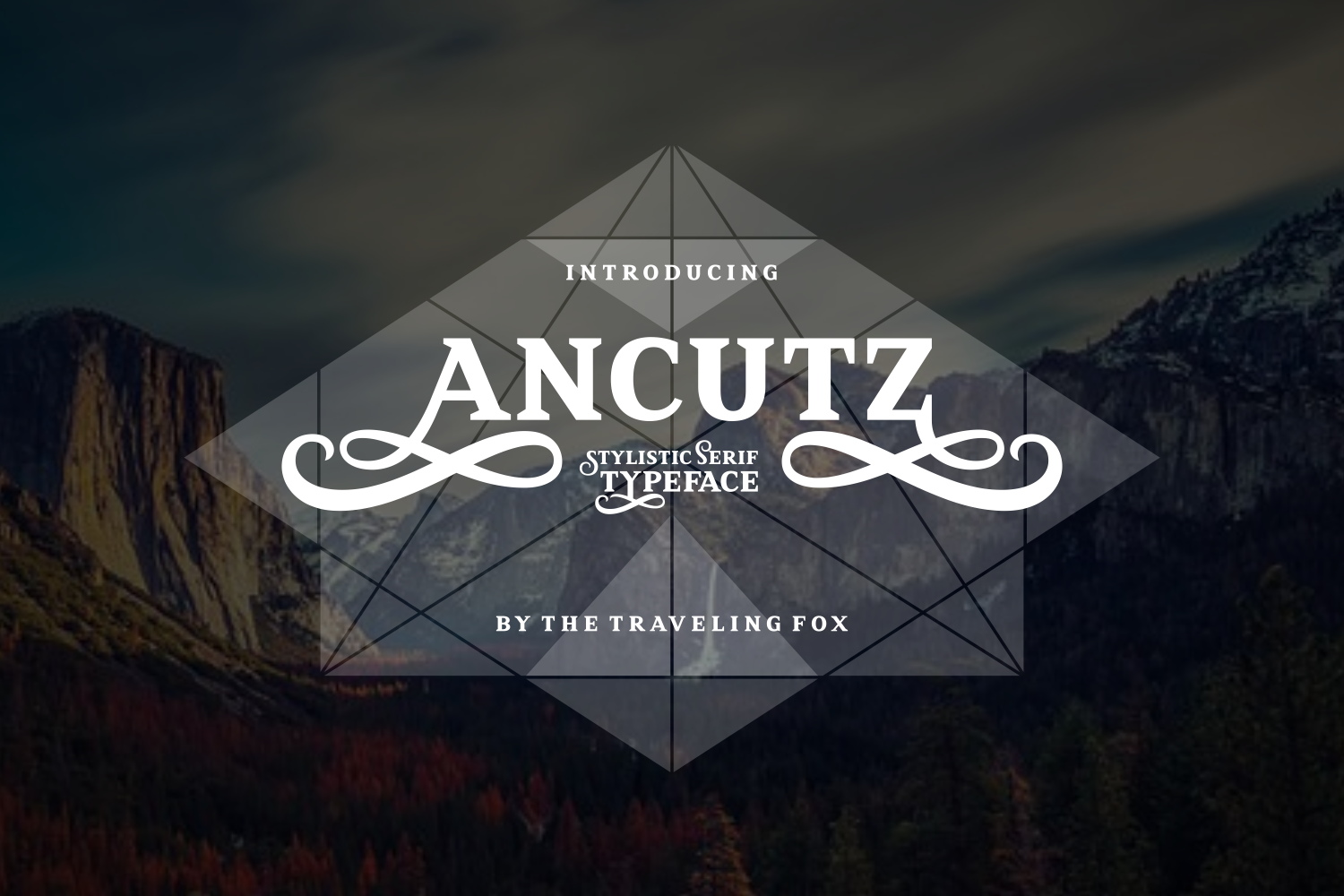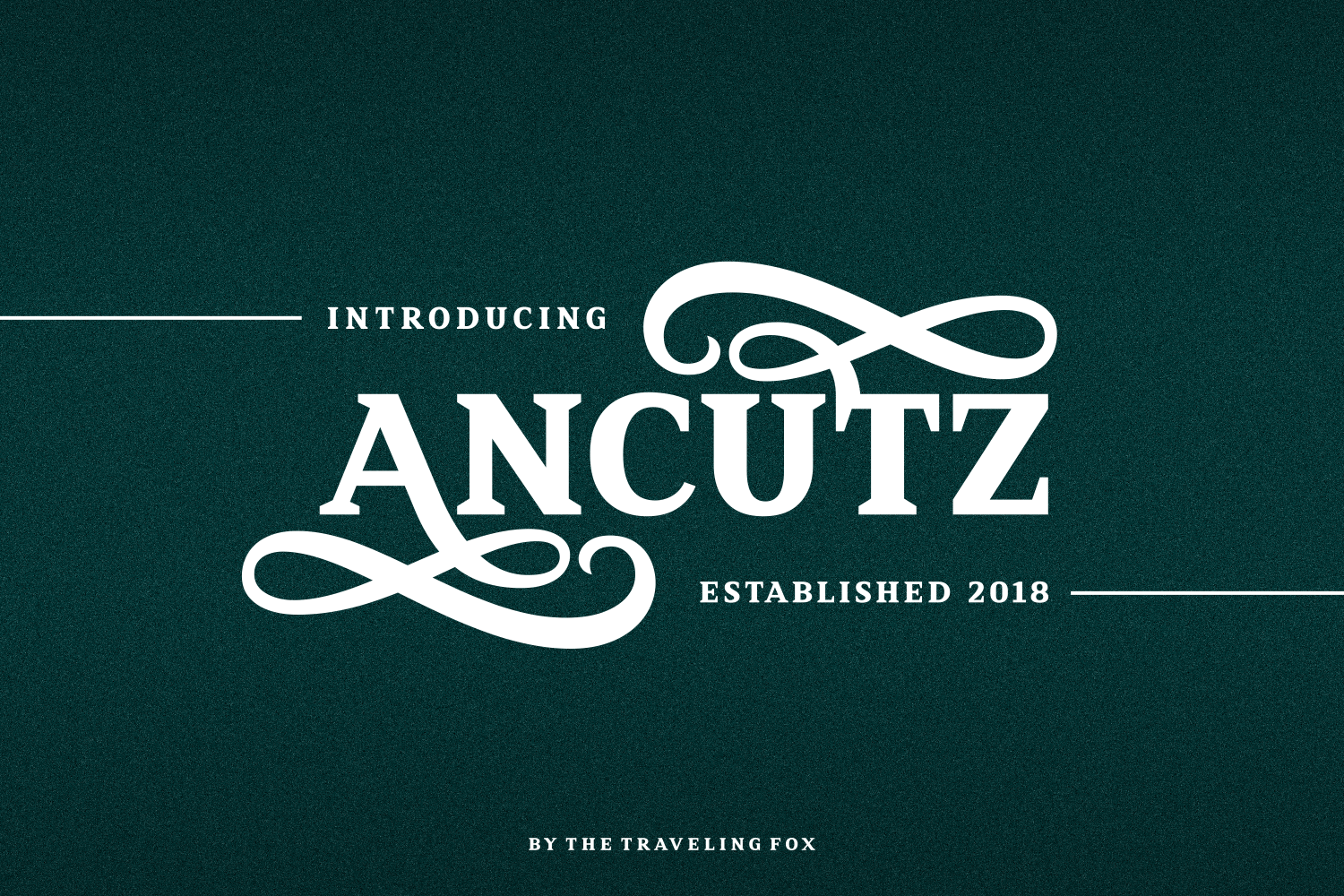
Introducing Ancutz Font: Elevate Your Designs with Elegance and Versatility
Are you on the hunt for a font that exudes sophistication and charm? Look no further than Ancutz, an elegant, serif-inspired display font designed to take your creative projects to the next level. With its vast array of unique glyphs and multilingual capabilities, Ancutz is the perfect addition to any designer’s toolkit.
What Makes Ancutz Stand Out?
Ancutz boasts an impressive collection of over 570 unique glyphs, providing you with ample flexibility to reuse this font across various projects. This extensive character set ensures that you can experiment with different styles and designs without compromising on quality or consistency.
Whether you’re crafting labels, logos, badges, or vintage-style designs, Ancutz is the ideal choice. Its serif-inspired aesthetic lends a touch of sophistication and refinement, making it perfect for projects that demand a high level of elegance.
Multilingual Support for Global Designs
In today’s interconnected world, design often requires a global perspective. Ancutz font rises to the challenge, featuring support for most European languages. This multilingual capability ensures that your designs can reach and resonate with a diverse audience, making Ancutz an excellent choice for international brands and projects.
Ancutz is more than just a font – it’s a creative partner that can help you bring your vision to life. Whether you’re a professional designer or a crafter looking to add a personal touch to your projects, Ancutz offers the versatility and elegance you need.
From branding and advertising to packaging and stationery, Ancutz can elevate your designs and give them a distinctive edge. Its vintage-inspired aesthetic also makes it perfect for crafters working on DIY projects, such as handmade cards, scrapbooking, and other paper crafts.
Tips for Using Ancutz Effectively
To get the most out of Ancutz, here are a few tips to keep in mind:
- Experiment with different font sizes and styles to create visual hierarchy and emphasis.
- Use Ancutz in combination with other fonts to create a unique and harmonious design.
- Take advantage of Ancutz’s multilingual capabilities to create designs that cater to a global audience.
- Don’t be afraid to get creative and try out new and innovative design ideas.
In conclusion, Ancutz font is a versatile and elegant serif-inspired display font that’s perfect for designers and crafters looking to add a touch of sophistication to their projects. With its extensive character set, PUA encoding, and multilingual support, Ancutz offers the flexibility and creative freedom you need to bring your designs to life.